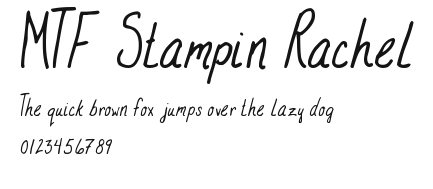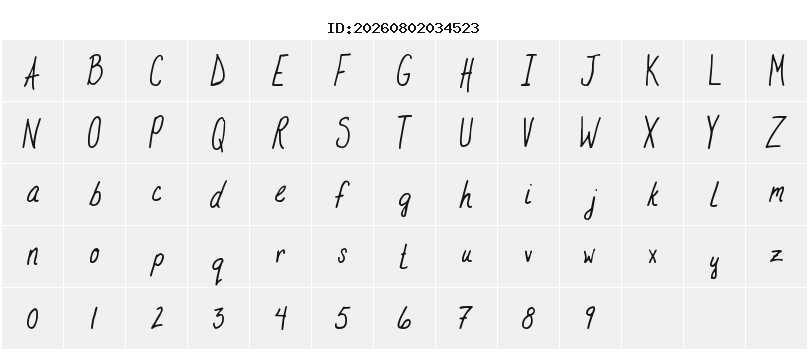
• Font Name: MTF Stampin Rachel
• Designer: Miss Tiina
About MTF Stampin Rachel.ttf
MTF Stampin Rachel.ttf is a modern, elegant sans-serif font designed for ultimate readability and visual harmony. Perfect for branding, headlines, web design, and print materials.